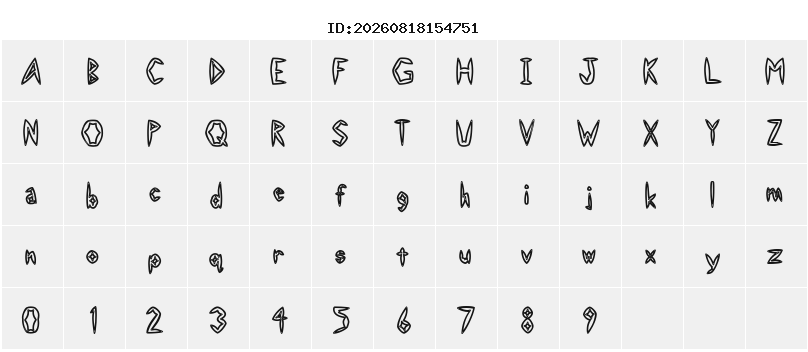
• Font Name: Slightly Hollow
• Designer: Ben McGehee
• Manufacturer: UnAuthorized Type
• Description: This version includes upper and lowercase letters, punctuation, and a few international characters. I also included some UA Type dingbats (just to amuse myself, and so you don't get those annoying boxes when you type something that isn't in the font). This could be considered an alternative to Swollen Slightly, since it was based on it. Or maybe you would call it a variation. Some people may think it's really cool. Some people will not. Thank you for taking the time to download this and read my ramblings.